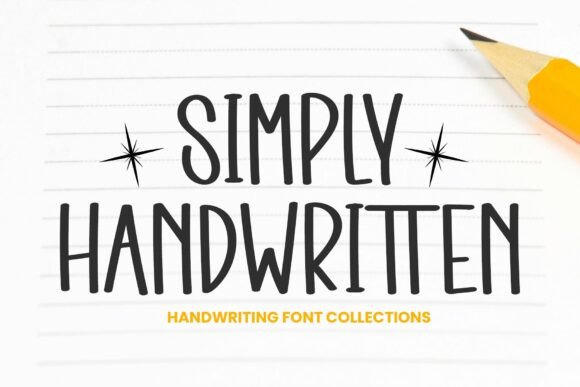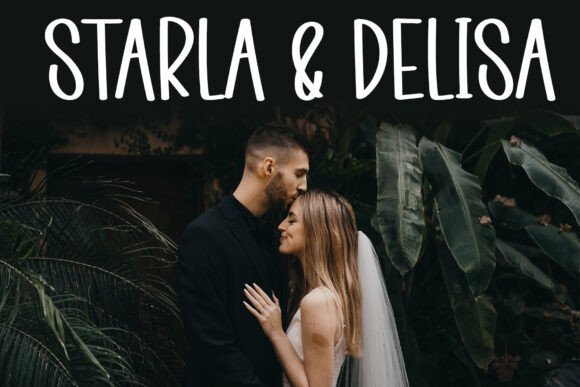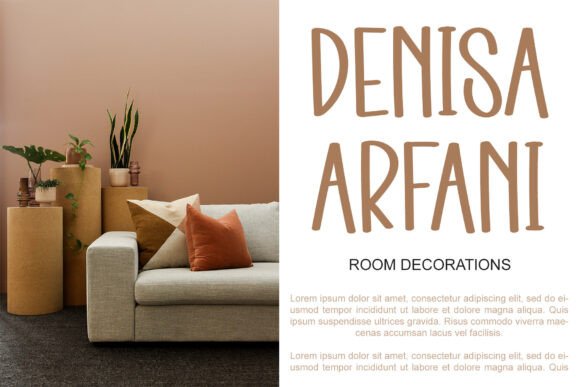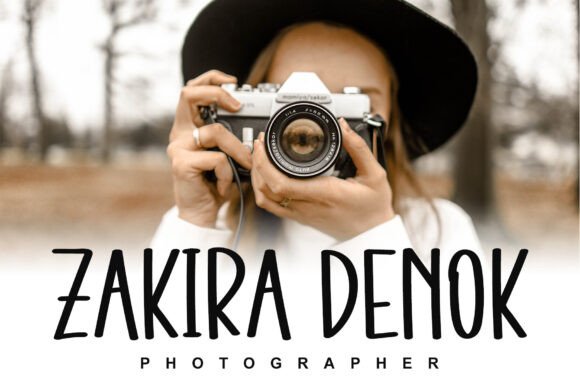
Simply Handwritten Font
About the Simply Handwritten Font
The wait is over! The incredible Simply Handwritten Font is now available for your design toolkit. Simply Handwritten – A Fun & Creative Display Font
Bring your designs to life with Simply Handwritten– a vibrant, playful display font full of personality and charm! This creative display font is perfect for eye-catching headlines, logos, posters, and any project that needs a bold, playful touch. Whether you’re designing for a toy brand, a birthday theme, or any project that needs a dose of fun, Simply Handwritten delivers a lively and creative display font solution. Let your imagination run wild with this ultra-playful typeface!
Simply Handwritten Font Usage Examples
Simply Handwritten Font Example